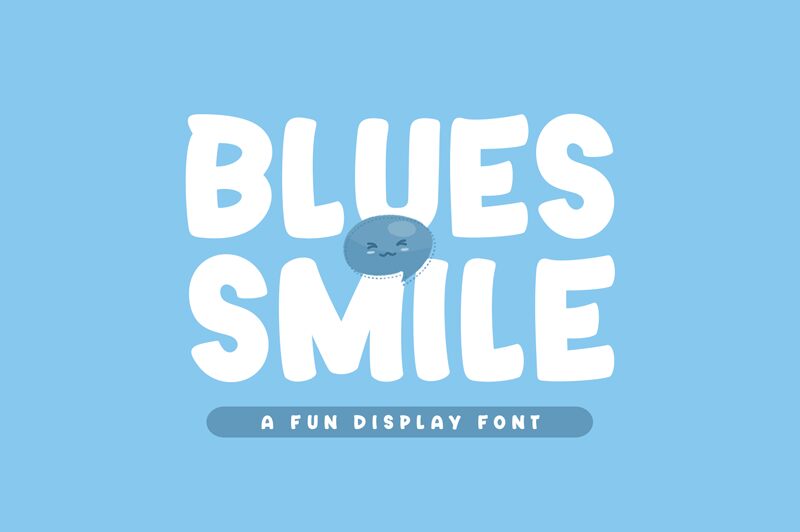
Blues Smile
Introducing Blues Smile, the playful and ultra-bold display font designed by Khurasan & Jalembe. With its cartoon style, this font is perfect for a variety of creative projects, from children's books to branding for fun and quirky businesses. Its exaggerated curves and thick strokes add a touch of whimsy to any design, making it ideal for eye-catching headlines or attention-grabbing logos. Whether you're designing invitations for a child's birthday party or creating a logo for a new ice cream shop, Blues Smile is sure to bring joy and personality to your project.